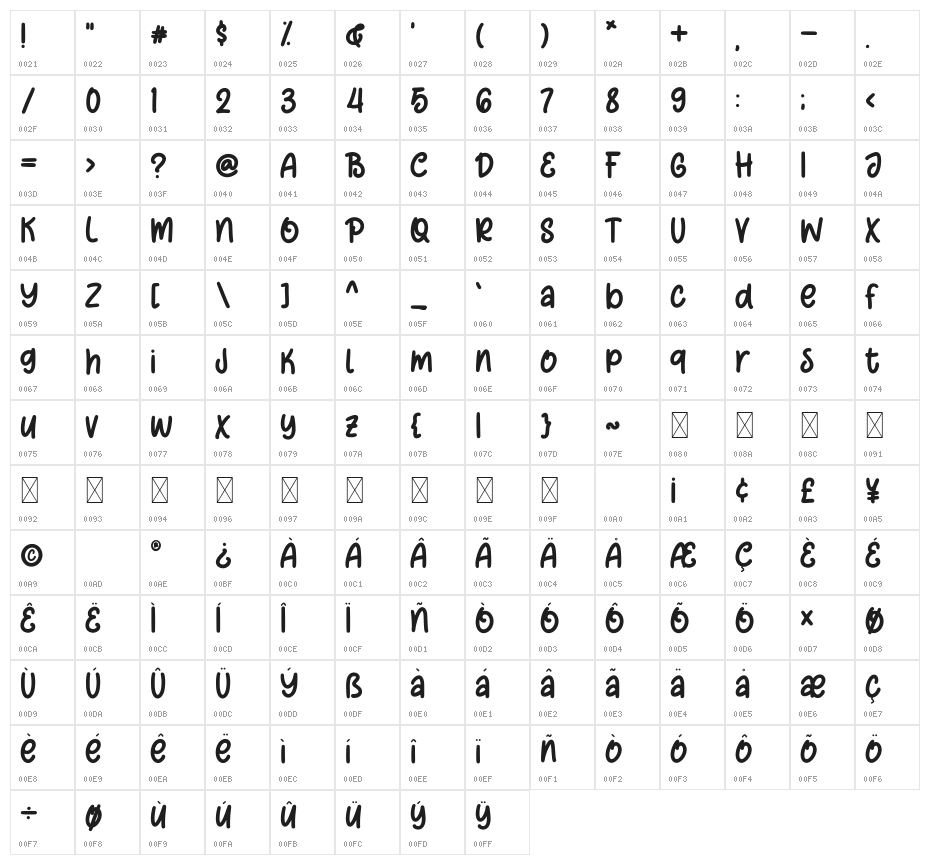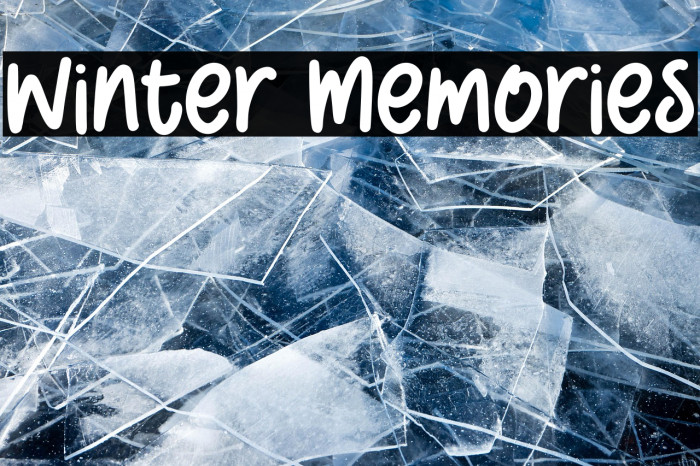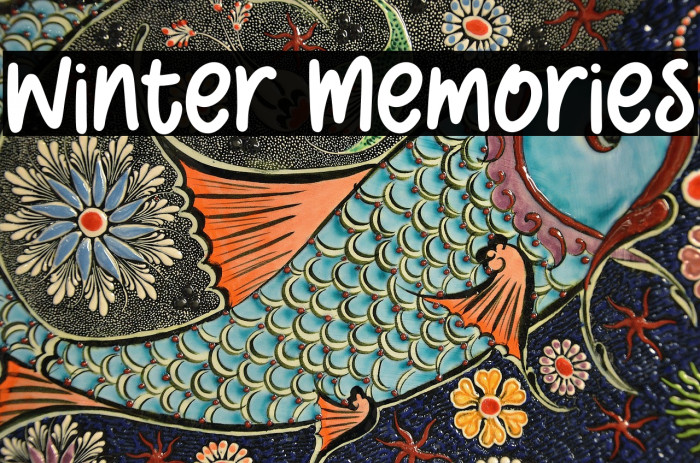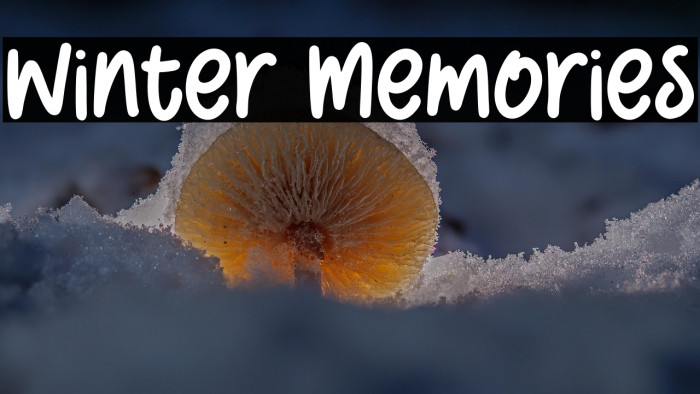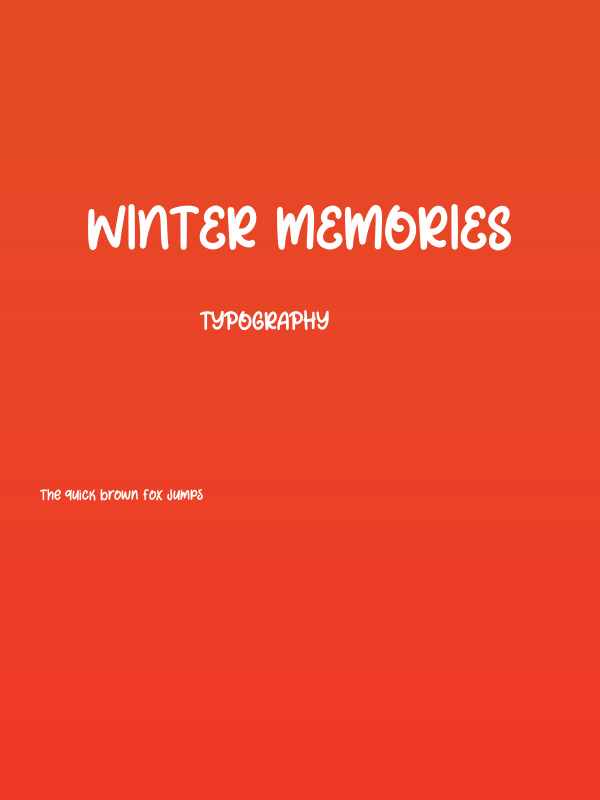
Winter Memories Font
Winter Memories Description
This playful and bold font features a handwritten style with smooth, rounded edges, giving it a friendly and approachable appearance. The characters are slightly slanted, adding a dynamic and casual feel. The uppercase and lowercase letters maintain consistent proportions, while the numerals and special characters are designed to complement the overall style. The font's thick strokes and uniform weight make it highly legible, even at smaller sizes. Its whimsical nature makes it ideal for projects that require a personal touch, such as invitations, greeting cards, and children's books.
| Overall Style | Playful, Casual |
| Proposed Projects | Ideal for invitations, greeting cards, children's books, and playful branding. |